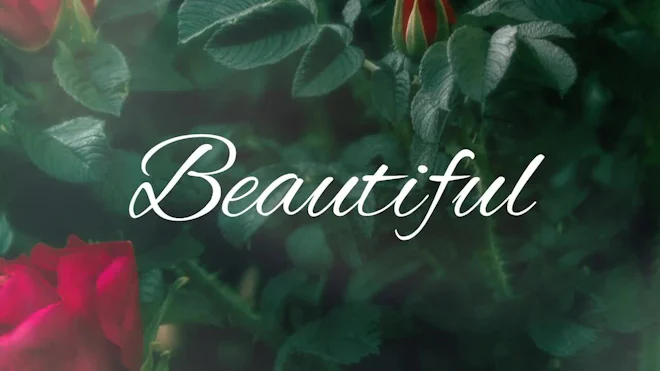
This After Effects template features a simplistically animated hand-written text animation. It contains the entire English alphabet, 15 special characters, and 10 numbers. A video tutorial is included. Available in 4K and HD.